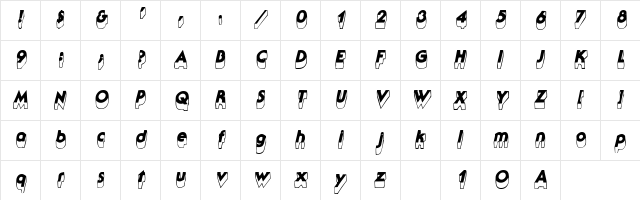
ColvilleShadowSSK Italic Font Preview
ColvilleShadowSSK Italic
ColvilleShadowSSK Italic Font Details
Design Context for ColvilleShadowSSK Typeface
ColvilleShadowSSK brings ornamental detail and strong personality to headlines and identities, where visual impact matters more than quiet functionality. Its italic angle brings a sense of urgency and motion to the letterforms.